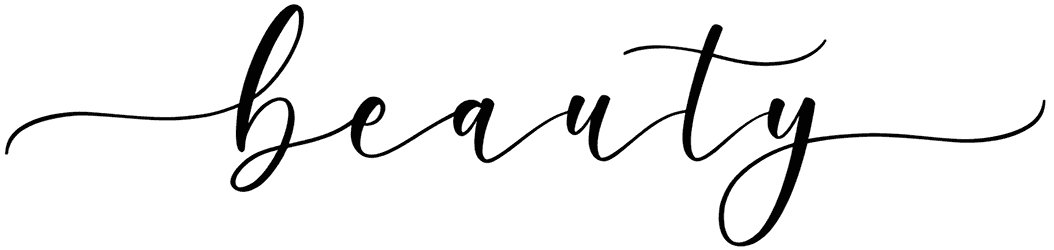
Beauty Font
Beauty has an artistic element that matches both simple and complex projects. The inherent beauty of this calligraphy font validates your designs, even though it is illegible.
With this dream font, you no longer have any restrictions to implement disorder in your designs, and you can run any idea in your mind in the most beautiful format on posters, packaging, advertisements, and invitation cards.